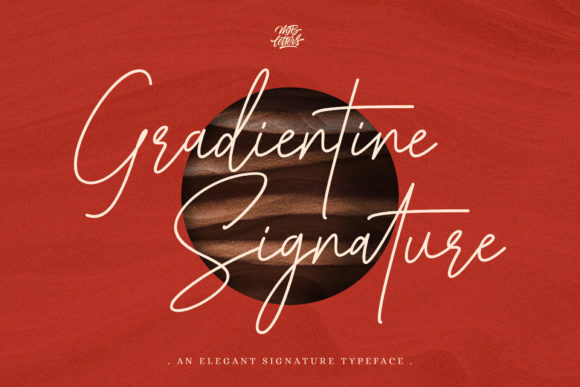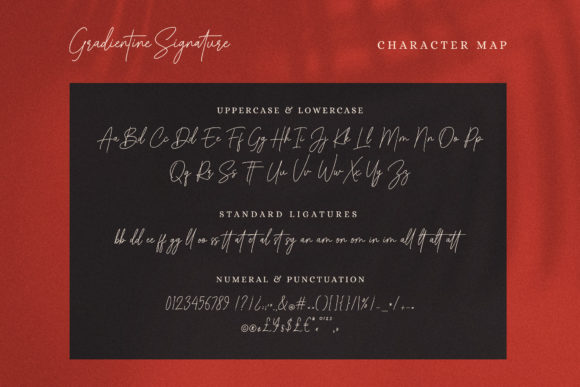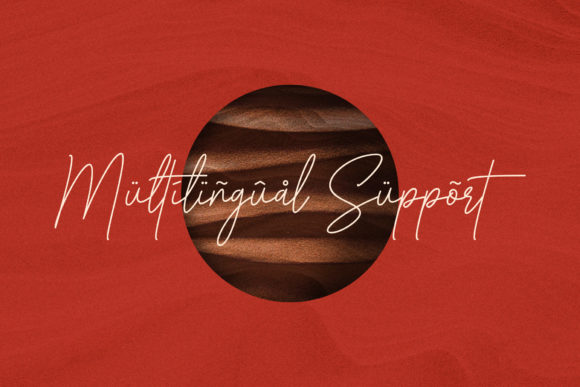
About Gradientine Signature Font
“Gradientine Signature” is more than just a font; it’s a journey into romance and sweetness, captured in the elegant dance of its calligraphic characters along the baseline. This typeface is a tribute to the art of calligraphy, imbued with a casual yet sophisticated touch. Its PUA encoding enhances its accessibility, allowing you to effortlessly explore its multitude of glyphs and swashes, opening the door to boundless creative possibilities.
The allure of “Gradientine Signature” is its seamless blend of romance and sweetness. Each character is masterfully designed to create an aesthetic that not only captures the eye but also evokes feelings of tenderness and elegance.
As you welcome “Gradientine Signature” into your creative realm, you’ll experience its transformative power. By incorporating this typeface into your projects, you’ll observe how it elevates and amplifies your ideas, infusing them with an enchanting allure that sets them apart.
In essence, “Gradientine Signature” transcends being a mere font. It’s an expression of romance and sweetness, poised to enrich visuals across a diverse range of contexts. With its casual yet elegant calligraphy style, this typeface stands as an invaluable tool for designers striving to create visuals that exude emotion, sophistication, and a touch of whimsy. With “Gradientine Signature,” your designs don’t just communicate; they evoke a sense of enchantment that lingers in the hearts of those who encounter them.